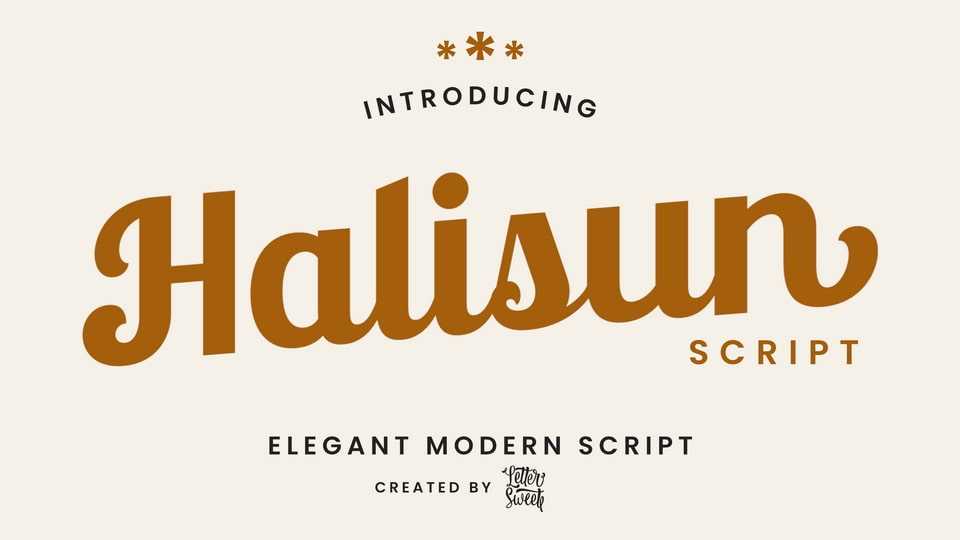
Download Halisun Script font, an elegant modern script typeface that blends smooth curves with a stylish vintage touch. Perfect for logos, invitations, packaging, social media, and branding projects,